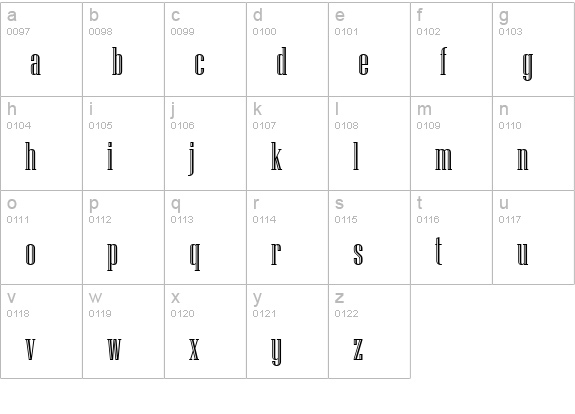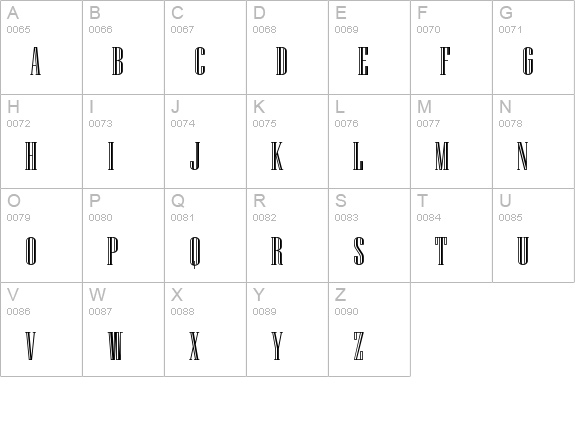
Niagara Engraved Font Details
Niagara Engraved font is a timeless and elegant typeface that exudes sophistication and class. Its intricate engraved style adds a touch of luxury to any design project, making it perfect for invitations, logos, and other high-end applications. The detailed and ornate letterforms of Niagara Engraved make it stand out from the crowd, capturing attention and leaving a lasting impression. The best part? Niagara Engraved font is completely free to download at FontsMarket.com, offering designers and creatives the opportunity to access this exquisite typeface without any cost. Whether you're working on a wedding invitation, a branding project, or a packaging design, Niagara Engraved font will elevate your work to new heights with its unique charm and sophistication. Download Niagara Engraved font today from FontsMarket.com and add a touch of elegance to your next project.